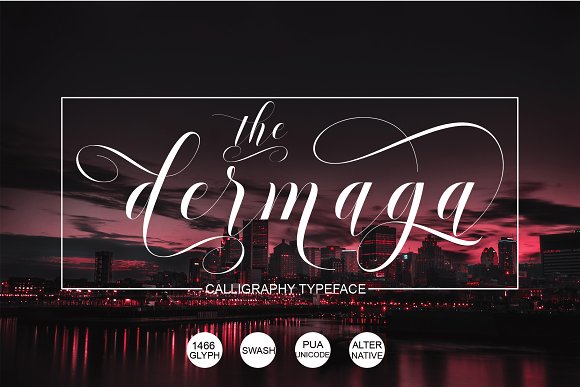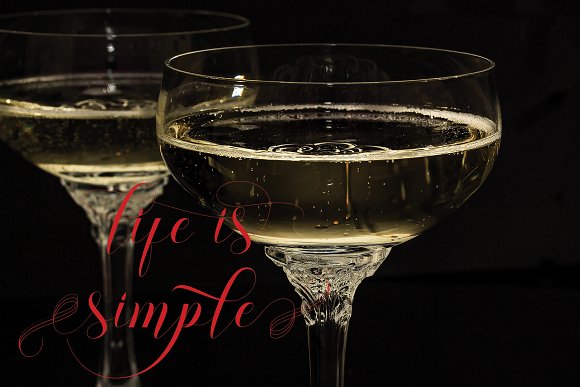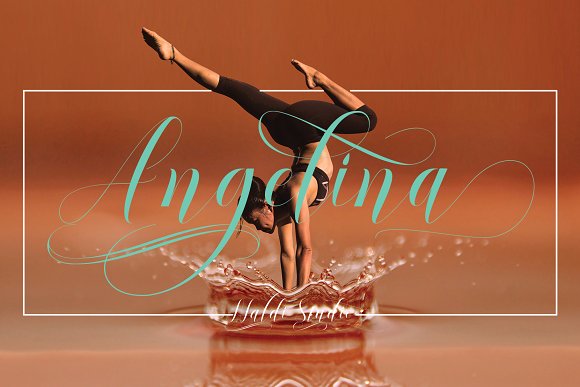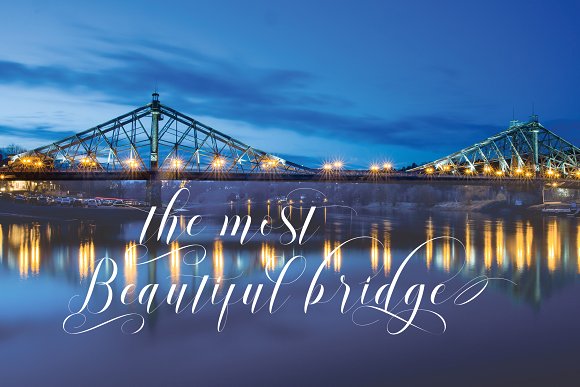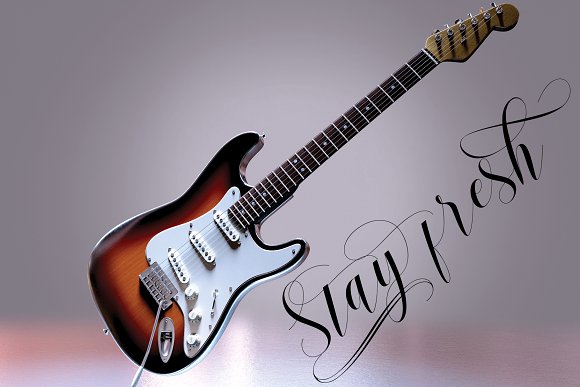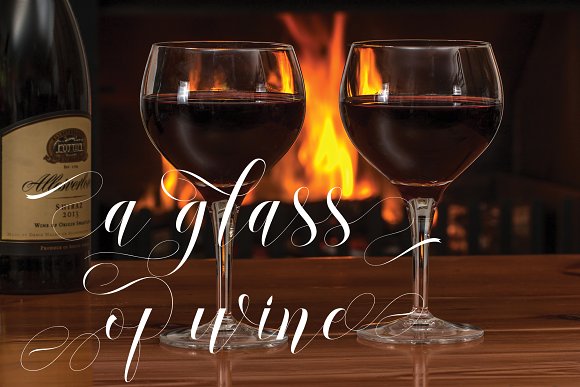
Dermaga Font
dermaga is a connecting script with dancing baseline, which is designed to convey elegance and style. It is clean, feminine and friendly. Works perfectly for logos, magazines, menus, books, invitations, wedding / greeting cards, packaging, labels, t-shirt etc. All designs you will have a wonderful homemade touch with dermaga.